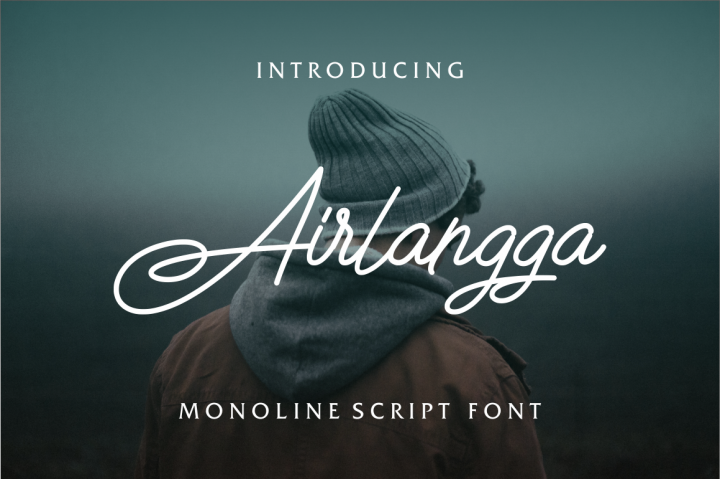
Airlangga Script Font
A modern handwritten calligraphy typeface with dancing up and down the baseline, if you want to use for your work this font can be used easily and simply because there are a lot of features. Introducing Airlangga Font. Airlangga a Monoline Script font with a casual look and a signature style. Airlangga is perfect for your upcoming projects. This script is casual and clean which makes it perfect for many designing needs such as logos, blog headers, wedding invitations, branding, t-shirts, posters & many more type of projects!